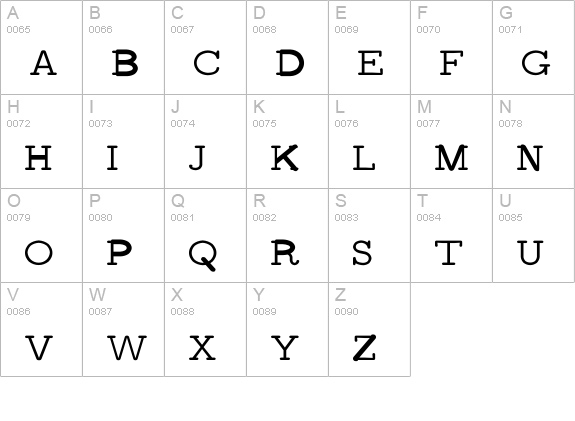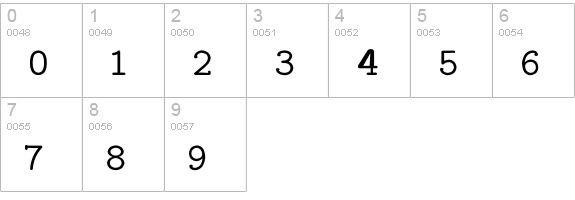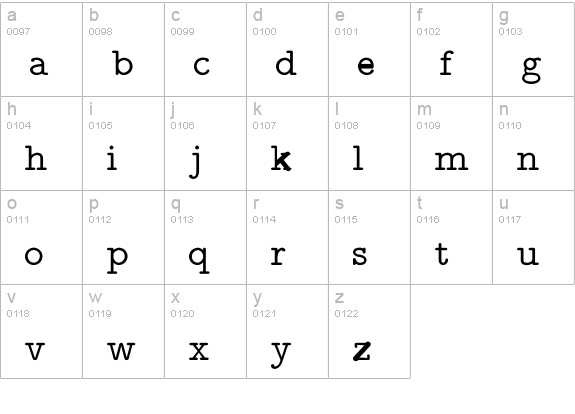
CM_VariableWidthTypewriter Regular Font Details
CM_VariableWidthTypewriter Regular is the standard, neutral variant in the CM_VariableWidthTypewriter typeface family \xE2\x80\x94 well suited to general body text, paragraphs, and standard typographic work.
Introducing CM_VariableWidthTypewriter Regular font, a versatile and stylish typeface that combines the classic aesthetics of a typewriter with a modern variable width design. This font is perfect for adding a touch of nostalgia and sophistication to your projects, whether it be for print or digital media. Featuring a balance of sleek lines and vintage charm, CM_VariableWidthTypewriter Regular font is sure to make your text stand out with its unique character and readability. Its variable width design adds a dynamic element to your typography, giving your words a sense of movement and flow. Best of all, this font is free to download at FontsMarket.com, making it easily accessible for all your creative endeavors. Whether you're designing a poster, creating a logo, or crafting a website, CM_VariableWidthTypewriter Regular font is a must-have addition to your font library. Download it today and let your creativity soar with this exceptional typeface.